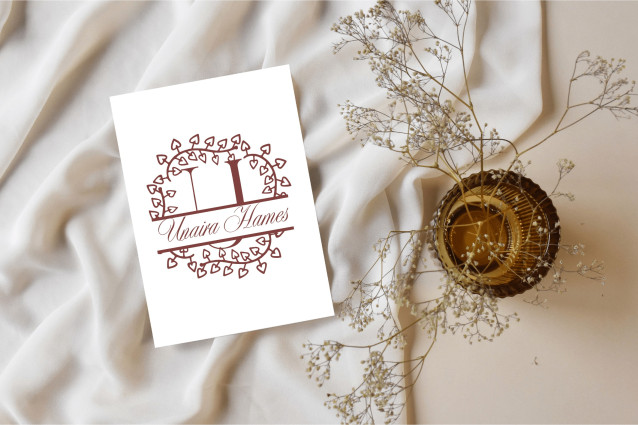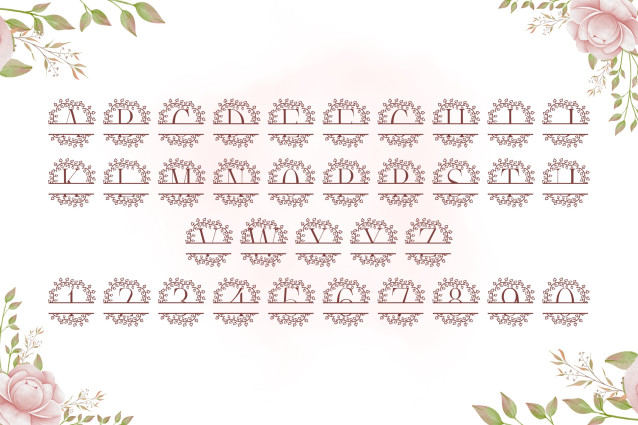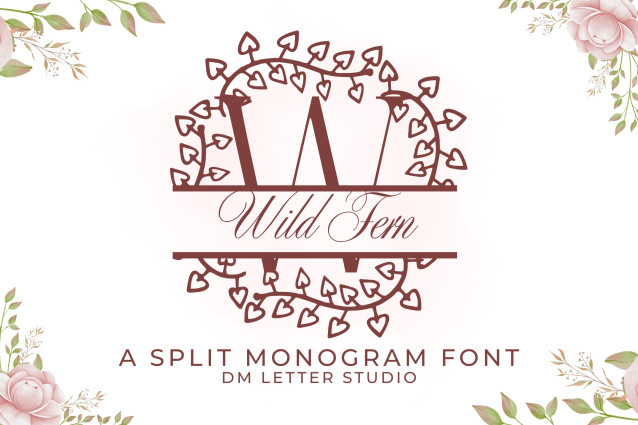
Wild Fern Split Monogram Font
Wild Fern Split Monogram Font is an elegant serif monogram font featuring graceful fern illustrations and a clean horizontal split, allowing for customizable text like names or initials. Inspired by forest foliage and rustic charm, this font adds a handcrafted botanical flair to weddings, branding, signage, and personalized gifts.